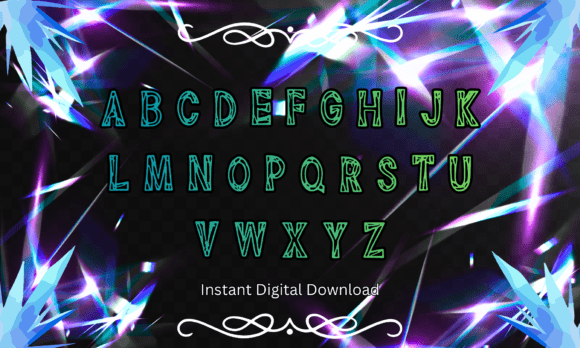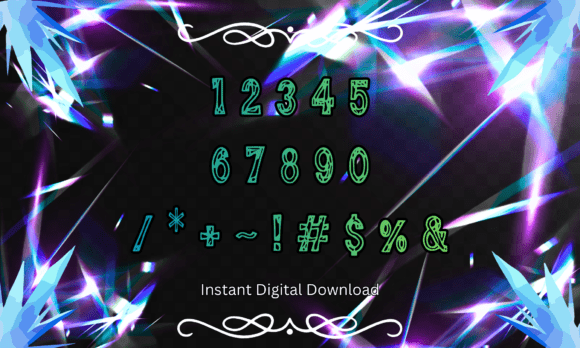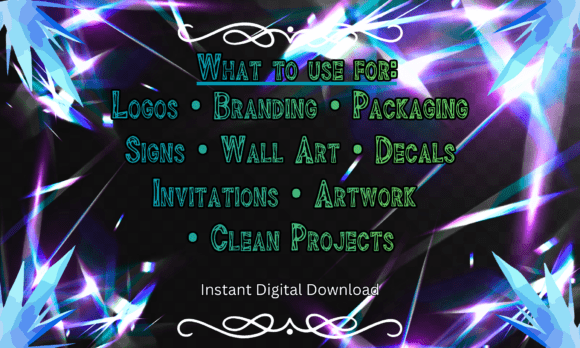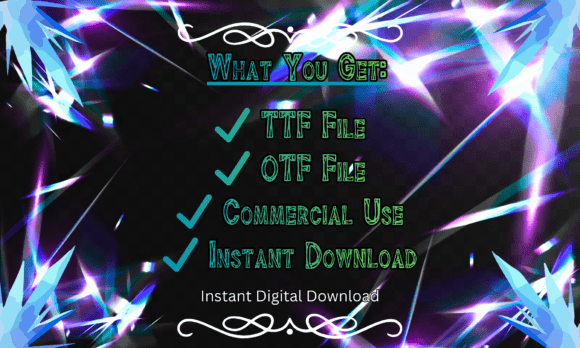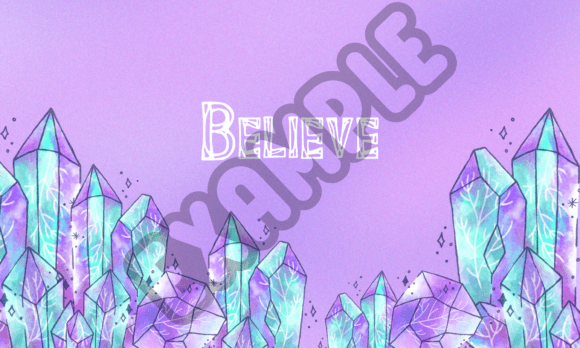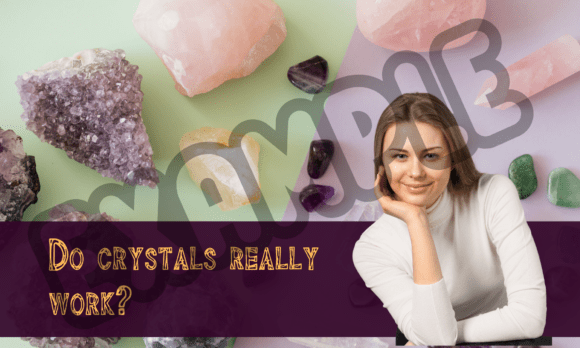
Introduction to Crystal Shard Font
Step into a world of neon chaos and shattered light with Crystal Shard Font ๐โก This bold, edgy display font brings electric energy, glitch vibes, and cyberpunk flair to your designs.
With its cracked, shard-like texture and glowing neon tones, this font is perfect for creators who want something playful, rebellious, and impossible to ignore Whether youโre designing for gaming, digital art, or bold brandingโthis font hits HARD.
Key Features of Crystal Shard Font
Why Choose Crystal Shard Font?
Crystal Shard Font offers exceptional quality and versatility, making it a valuable addition to your design toolkit. Whether you’re creating for personal projects or commercial use, Crystal Shard Font delivers professional results.